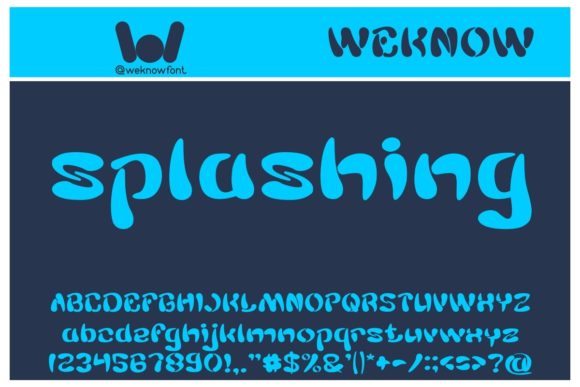
**Splashing: The Font That Captures Every Eye**
Prepare to be mesmerized by Splashing, our tantalizing display font that exudes style and sophistication. This typographic masterpiece is a true visual feast, meticulously crafted to elevate your designs to unparalleled heights.
Whether you're crafting captivating logos, commanding headlines, or designing showstopping posters, Splashing effortlessly steals the spotlight. Its bold and energetic strokes dance across the page, leaving an unforgettable impression that lingers long after the final word is read.
**The Perfect Harmony for Books and Beyond**
For authors seeking the perfect font to adorn their book covers, Splashing stands as the undisputed champion. Its captivating curves and dynamic lines perfectly complement the weight and gravitas of literary works, creating an irresistible allure that draws readers in from the very first glance.
**A Creative Force for Unparalleled Expression**
But Splashing's versatility extends far beyond the realm of books. Its energetic spirit lends a touch of magic to movie titles, ignites passion in gaming graphics, and adds a touch of boldness to magazine covers. With Splashing, your creative vision knows no bounds.
**Immerse Yourself in a World of Wonder**
Step into a world where imagination knows no limits. Dive into the depths of Splashing's captivating characters and let your creativity soar. Experience the thrill of crafting designs that captivate, inspire, and leave an enduring legacy.